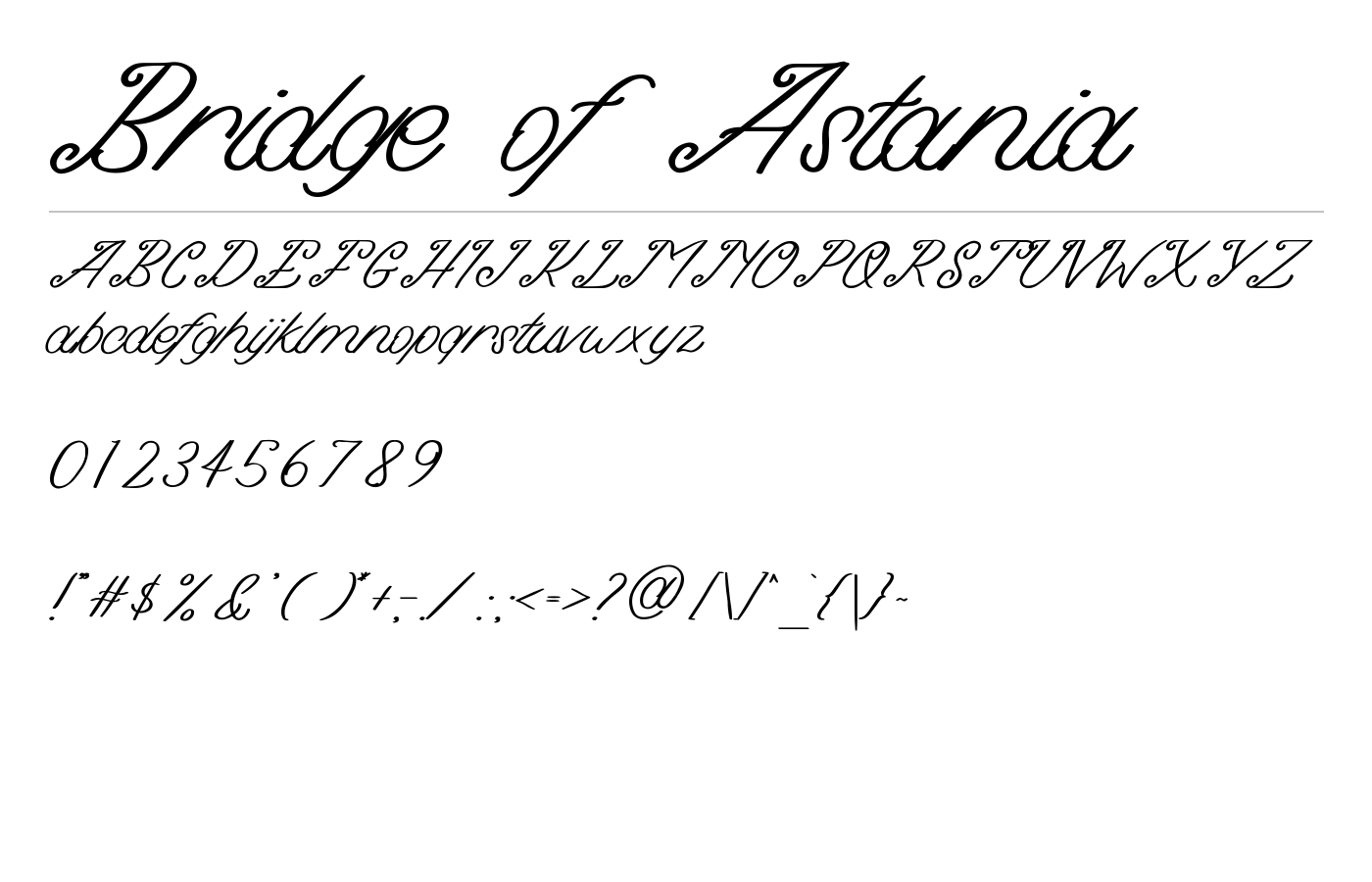
Bridge of Astania is an elegant script font featuring delicate, flowing strokes with a classic handwritten feel. Its slender, lightly slanted letterforms offer a refined and graceful style suitable for invitations, branding, and editorial projects that seek a timeless, sophisticated touch. This font works well in decorative text and display uses where a stylish, personal atmosphere is desired.
Bridge of Astania Font